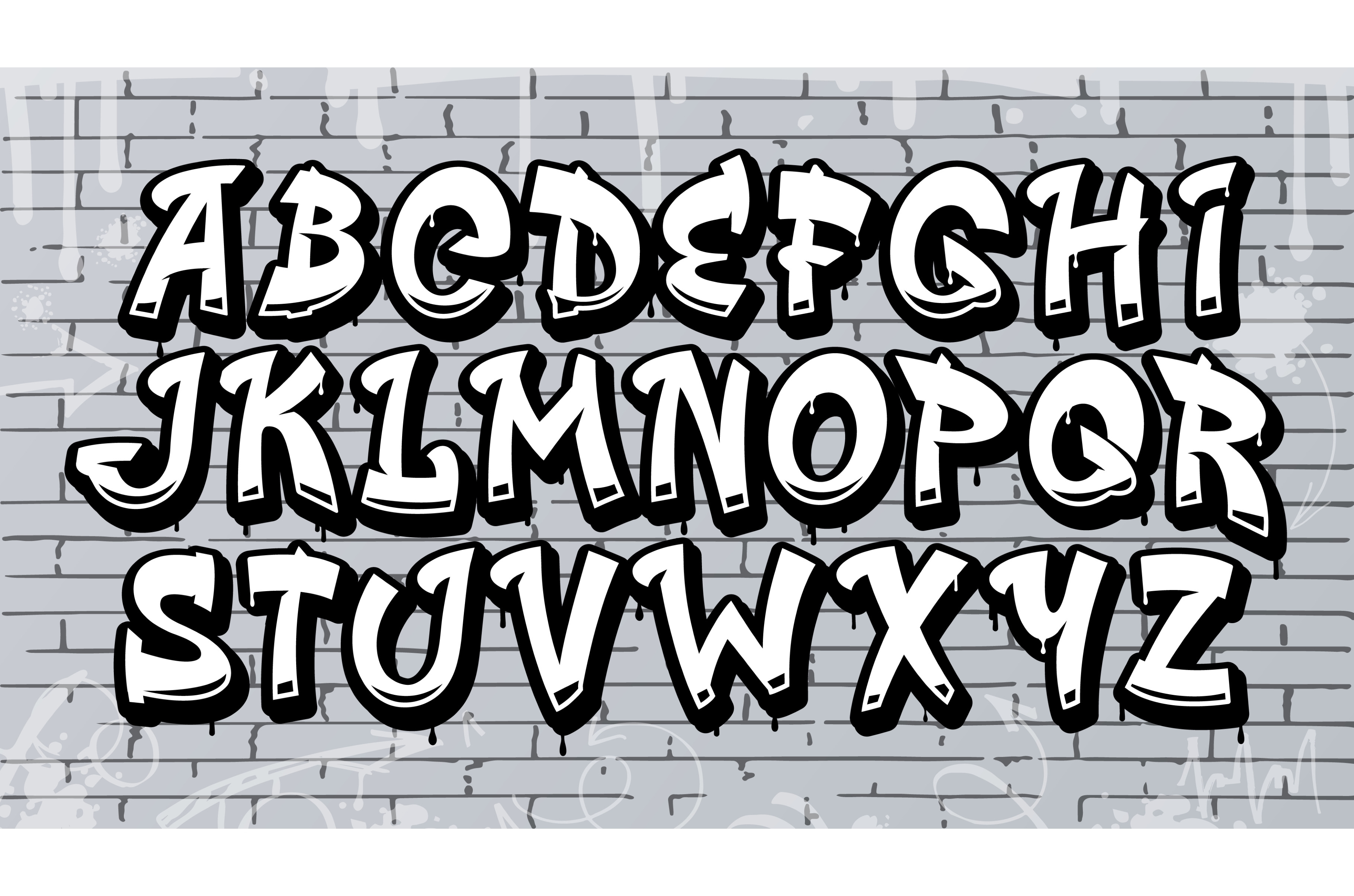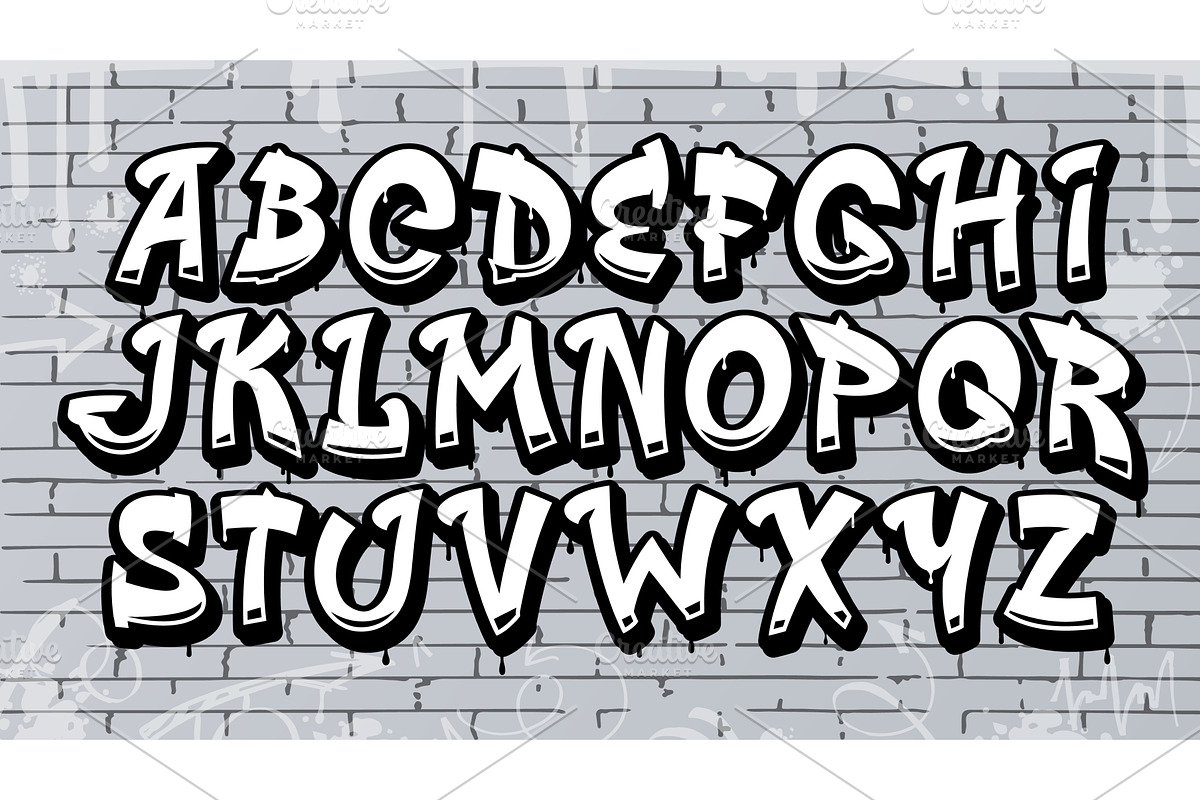
Graffiti font or hip hop type
Graffiti font or hip hop type in street art, typeface with grunge English alphabet, vector ABC. Urban style font with wall graffiti paint letters for old school typeface, rap music or street hip hop